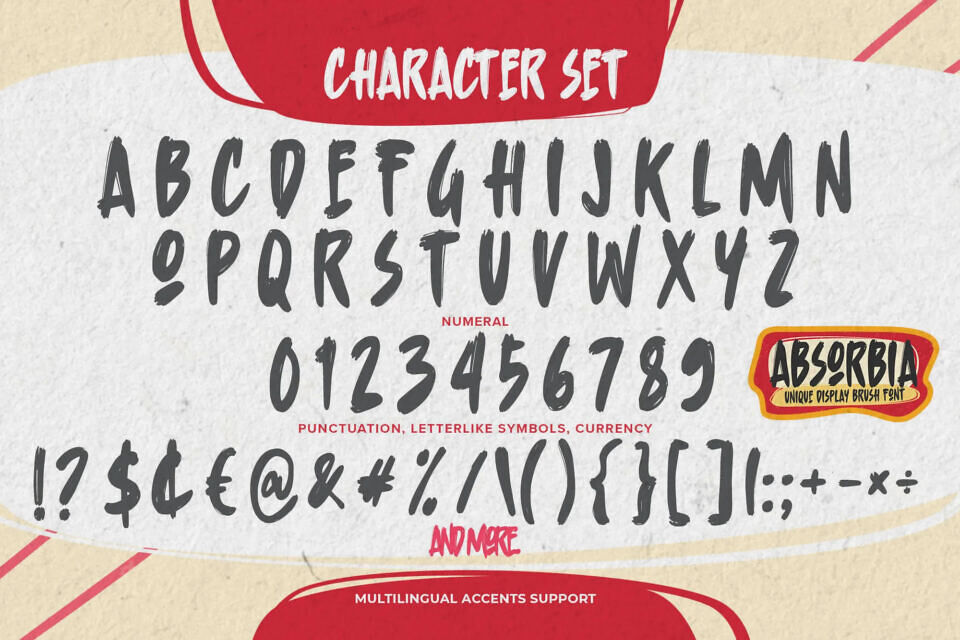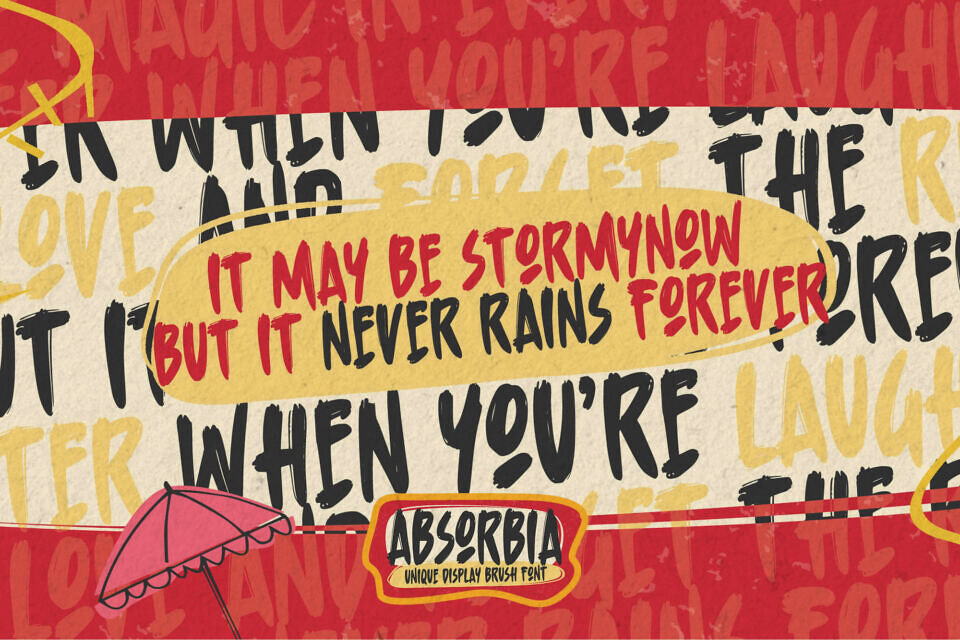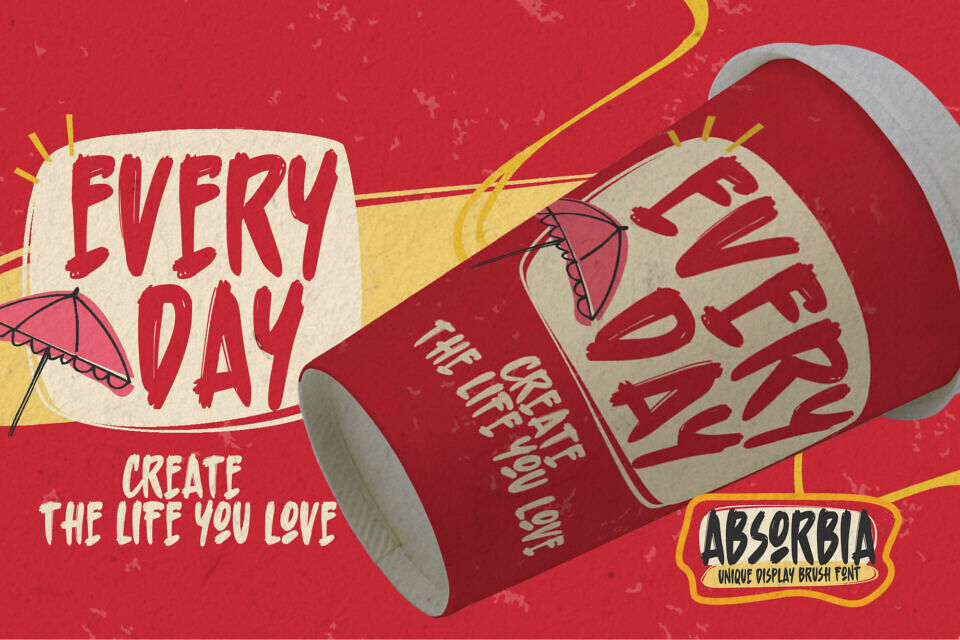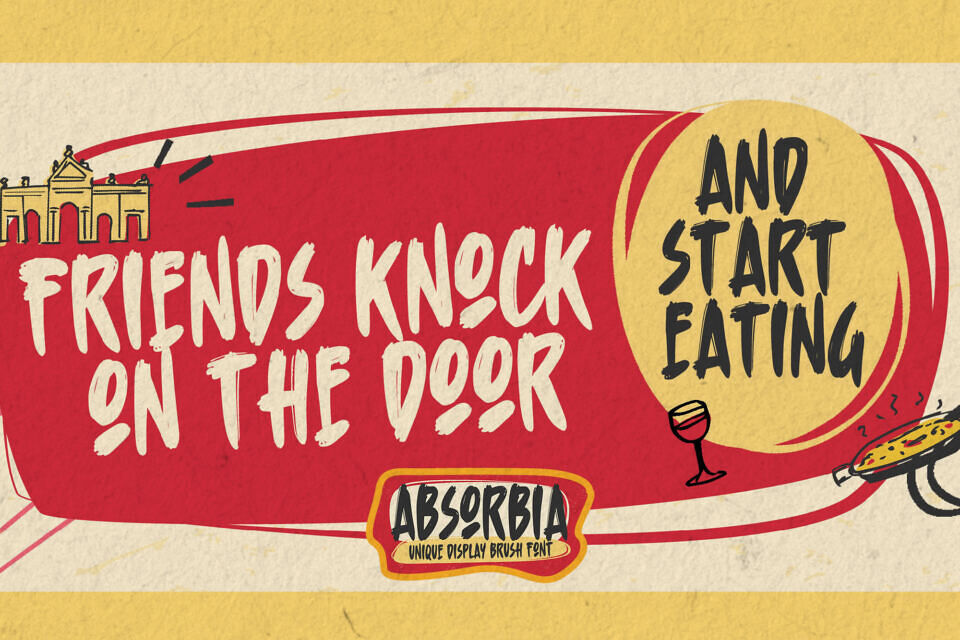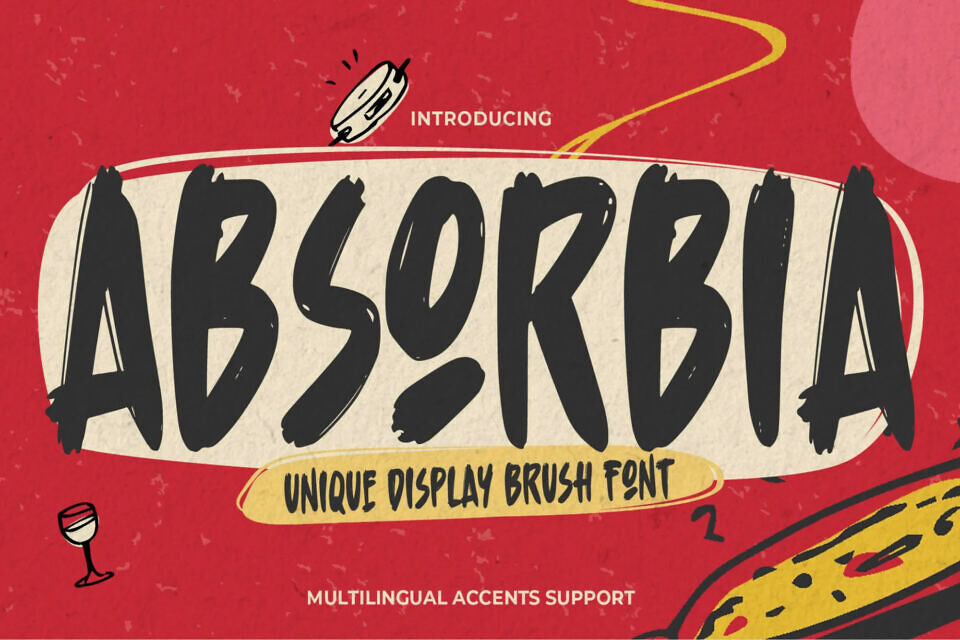
Absorbia Font
Absorbia is a cool display brush font with a charming and authentic feel. Its relaxed, natural look adds character to your text. With OpenType features like ligatures, alternates, and underlines, you can create unique designs.
Perfect for homeware, branding, logos, quotes, and product packaging, Absorbia brings a personal and rebelion touch to your projects.